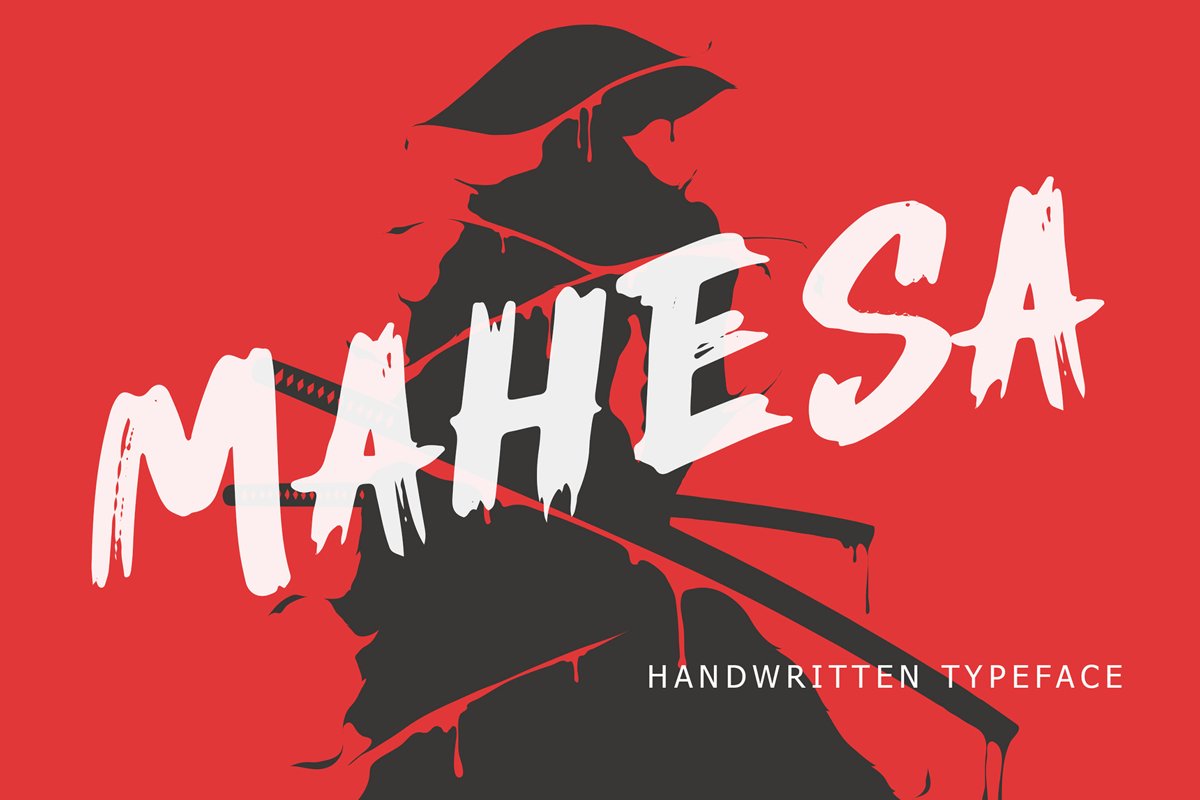
Mahesa Handwritten Brush Font
Mahesa
Mahesa is handwritten font with brush style. This font perfect for branding projects, logo, tshirt designs, social media posts, advertisements, product packaging, product designs, label, watermark, invitation, stationery and any projectsWhat's Included :